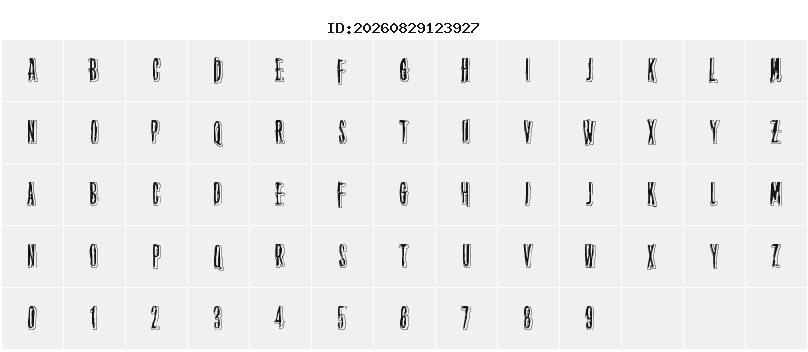
Thirteenth Floor 2 Preview
• Font Name: Thirteenth Floor 2
• Full Font Name: Thirteenth Floor 2
• Version: Version 1.00 September 22, 2015, initial release
About Thirteenth Floor 2.otf
Thirteenth Floor 2.otf is a modern, elegant sans-serif font designed for ultimate readability and visual harmony. Perfect for branding, headlines, web design, and print materials.